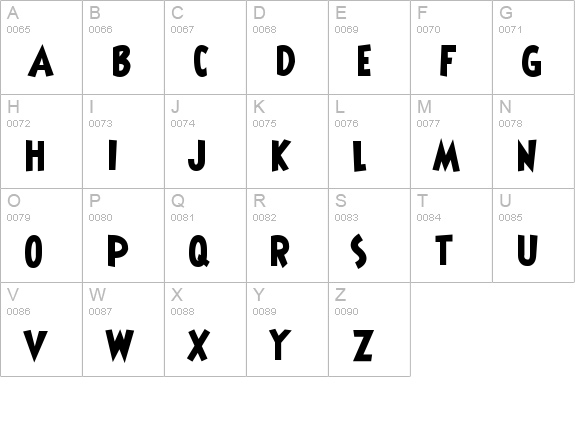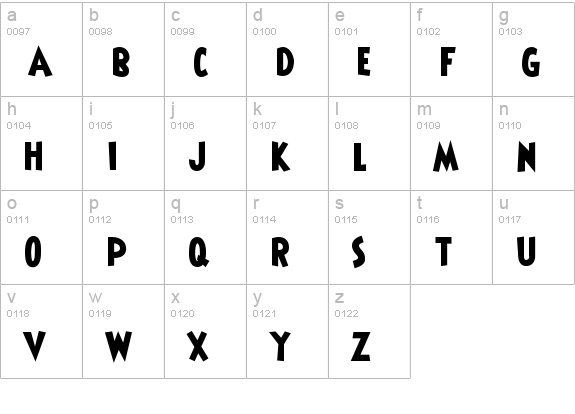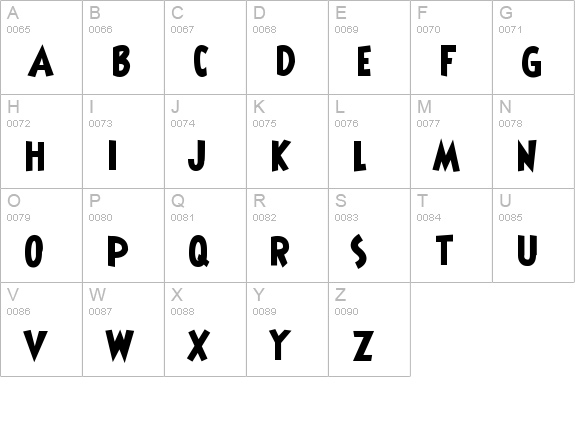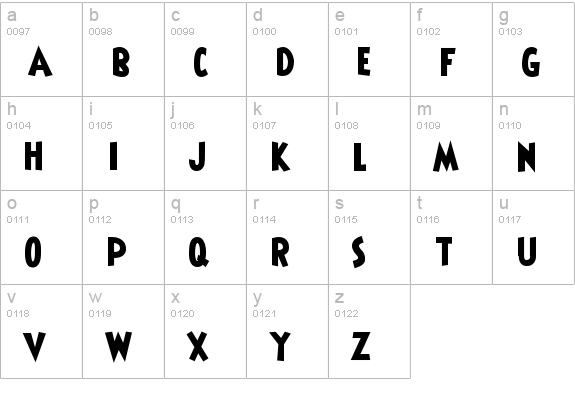
Shermlock Font Details
Shermlock font is a stunning display typeface that exudes elegance and sophistication. With its bold and confident letterforms, it demands attention and makes a powerful statement. This font is perfect for headlines, logos, and any design project that requires a touch of class. What's more, Shermlock font can be yours for free! That's right, this exceptional typeface is freely available to download at FontsMarket.com. Whether you're a professional designer or someone looking to add a unique touch to your personal projects, Shermlock font is the perfect choice. The clean lines and sharp edges of Shermlock font give it a modern and contemporary feel, while the subtle details and curves add a touch of refinement. It strikes the perfect balance between simplicity and sophistication, making it versatile and suitable for a wide range of design styles. The versatility of Shermlock font is further enhanced by its extensive character set, which includes uppercase letters, lowercase letters, numerals, punctuation marks, and special characters. This allows you to create beautiful and harmonious typography that perfectly complements your designs. Whether you're creating a luxurious brand identity, designing an eye-catching poster, or crafting a stylish invitation, Shermlock font will elevate your project to new heights. Its timeless appeal and attention-grabbing presence make it a must-have in any designer's toolkit. So why wait? Download Shermlock font for free at FontsMarket.com and unlock the potential of your designs. Stand out from the crowd and make a lasting impression with this exceptional typeface.